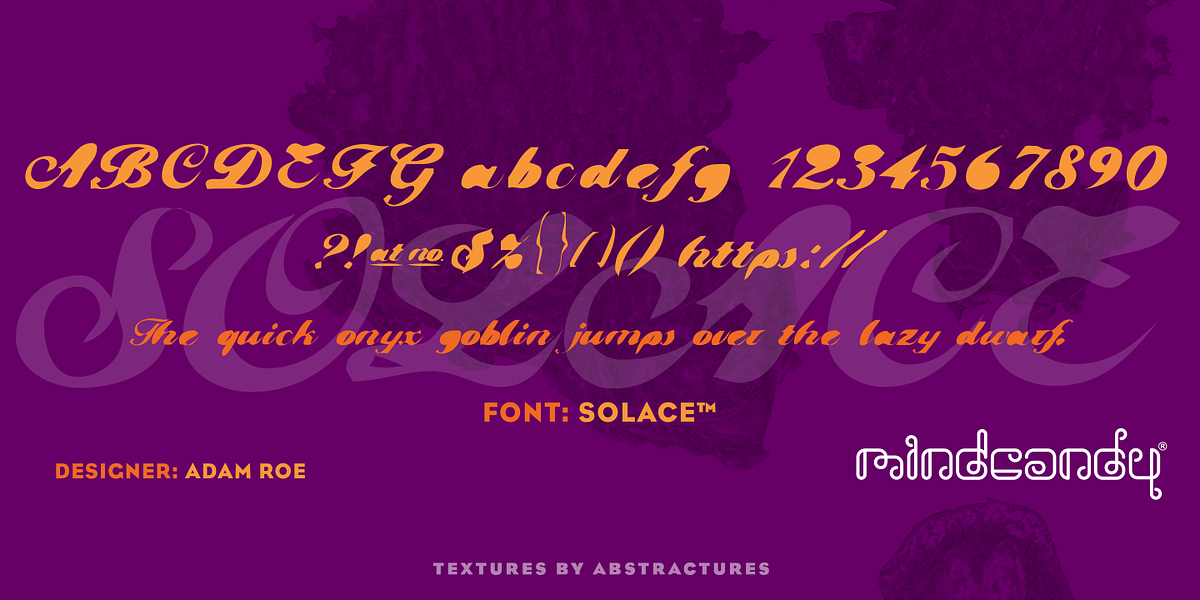
Solace™
This formal script font, designed by Adam Roe, has a distinct historical feel. Its elegant strokes and high contrast make it suitable for invitations, certificates, and other formal design projects.